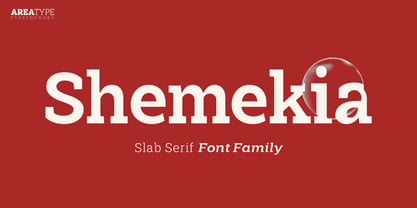
Shemekia
by Areatype
The Shemekia Font Family was designed by Ambia and published by Areatype. Shemekia contains 20 styles and family package options.
Shemekia is an all-time classic slab-serif, Also available Shemekia italic to help you mix and match it to fit your creative work in harmony. all to add an authentic touch to your designs.
Included 18 Fonts, upright and italic. From light to black styles.
Designers: Ambia
Publisher: Areatype